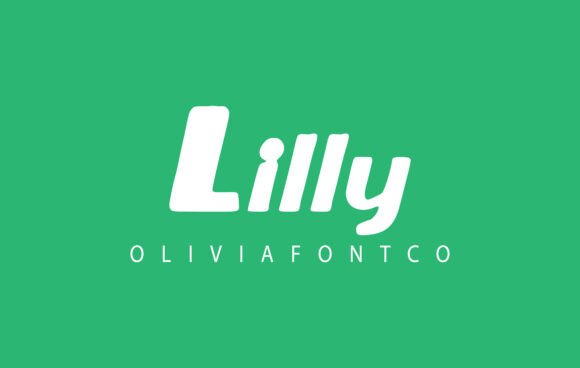
Why Lilly Font is a Game-Changer for Creative Projects
In the world of design, typography plays a crucial role in how your message is perceived. Whether you're creating a brand identity, designing a wedding invitation, or crafting social media content, choosing the right font can make all the difference. One name that’s been gaining attention among designers and creatives alike is Lilly. This unique, handwritten font brings an air of elegance and romance to any project it touches. In this article, we’ll explore why Lilly is becoming a favorite in modern creative workflows and how it can elevate your designs across multiple platforms.
The Beauty of Handwritten Typography
Handwritten fonts have a special charm that digital typefaces often lack. They add personality, warmth, and authenticity to visual projects. Unlike rigid, mechanical fonts, handwriting feels more human—like it was crafted by someone with intention and care. Lilly taps into this natural appeal, offering a romantic and artistic style that's both expressive and professional.
Designed with precision, Lilly maintains legibility while preserving the fluidity and character of true handwriting. It avoids the pitfalls of many cursive fonts that become difficult to read when used in large blocks of text. Instead, it strikes a balance between beauty and functionality, making it versatile enough to serve as either a headline or body font.
Legibility Meets Elegance
One of the standout features of Lilly is its readability. While many handwritten fonts are too ornate for practical use, Lilly ensures each letter remains clear and easy to follow. The spacing between characters is carefully adjusted, and the strokes are consistent yet expressive. This makes it ideal for longer texts like editorial content, greeting cards, or branding materials where clarity is just as important as aesthetics.
Its elegant curves and soft lines evoke a sense of sophistication, making it perfect for high-end design work. From fashion blogs to lifestyle magazines, Lilly can help set the tone without overwhelming the reader. The font doesn’t shout—it whispers with grace, drawing attention subtly but powerfully.
Uses Across Industries and Projects
Fonts don't exist in a vacuum; they serve specific industries and purposes. That’s why it's essential to choose one that aligns with your message and audience. Lilly has found a home in several different fields due to its adaptability and aesthetic appeal.
- Magazine Headlines: For print and digital publications, especially those focused on fashion, weddings, or lifestyle, Lilly adds a touch of class to headlines. Its romantic feel fits well with themes of love, beauty, and personal expression.
- Social Media Content: Brands using platforms like Instagram, Pinterest, or Facebook often rely on visuals that speak to emotion. Lilly helps create captions and headers that stand out with a personal flair.
- Wedding Invitations: When it comes to wedding stationery, nothing says “personal” better than a beautifully handwritten font. Lilly offers a delicate yet bold presence that conveys both love and professionalism.
- Branding and Packaging: Companies looking to establish a warm, approachable image find value in using Lilly for logos, packaging, or promotional materials. It communicates trust and creativity effortlessly.
- Cards and Greeting Materials: Whether it's birthday cards, thank-you notes, or announcements, Lilly brings a handcrafted look that feels genuine and heartfelt.
Pairing Lilly with Other Fonts
While Lilly shines on its own, combining it with complementary fonts can enhance your design even further. A popular pairing strategy is to use Lilly for titles and headings while relying on a clean sans-serif or serif font for body text. This contrast keeps your layout visually engaging without sacrificing readability.
For example, pairing Lilly with Helvetica or Roboto in a magazine layout allows the title to pop while ensuring the rest of the text remains easy to digest. Similarly, using it alongside Georgia or Lora in a blog post creates a harmonious blend of romanticism and professionalism.
Practical Benefits of Using Lilly
When considering a new font for your projects, it's not just about looks. You also want something that works well technically and practically. Here’s why Lilly is a smart choice:
- High-Quality Design: Lilly is crafted with attention to detail, including smooth kerning and accurate glyph shapes. These small touches make a big difference in the overall appearance of your text.
- Wide Character Set: The font includes a broad range of symbols, punctuation, and alternate characters. This means you can customize your text for stylistic variety without needing additional tools or fonts.
- Web and Print Compatibility: Lilly performs reliably across both web and print formats. Its scalable vector format ensures it looks crisp whether viewed on a mobile screen or printed on premium paper.
- Emotional Impact: As mentioned earlier, Lilly has a romantic and personal feel. This emotional resonance can be powerful in marketing, storytelling, and branding efforts.
As you continue to explore typographic options, remember that fonts should serve the message, not overshadow it. Lilly does exactly that by enhancing the emotional impact of your words while maintaining clarity and professionalism. So the next time you're reaching for a font that combines beauty with function, consider Lilly as your go-to choice.